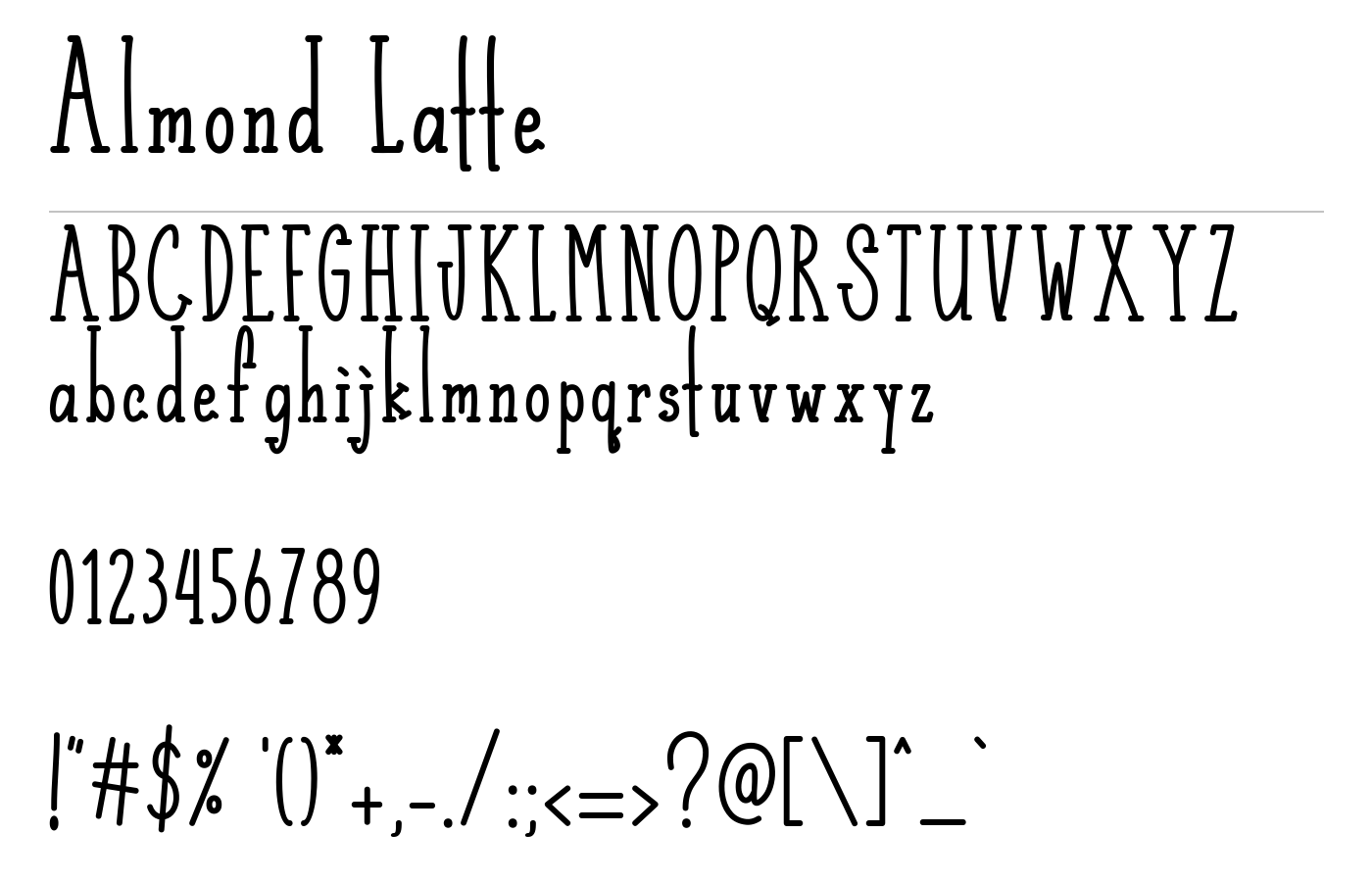
Almond Latte is a quirky, narrow serif font with a playful yet slightly vintage feel. Its tall, slender letterforms with delicate serifs and subtle irregularities give it a hand-crafted charm, making it ideal for creative branding, casual headlines, and packaging that want to evoke warmth and personality. This font works well where a friendly, approachable style is needed without sacrificing readability.
Almond Latte Font
About Almond Latte Font
| Font family | Almond Latte Font |
| Designer | Aldedesign 2019 |